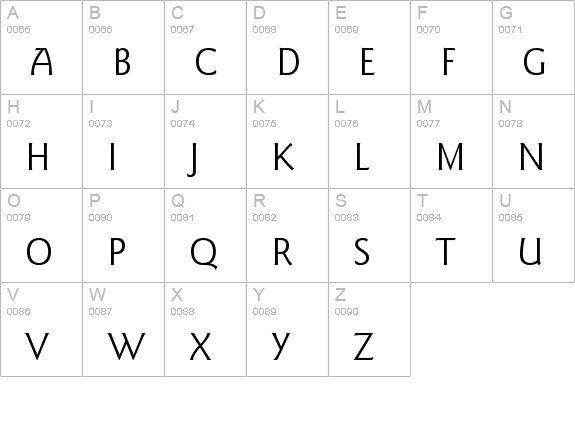
GoudySansSCEF-Book is a comfortable, highly readable variant in the GoudySansSCEF typeface family \xE2\x80\x94 well suited to long-form body text, articles, and editorial content.
GoudySansSCEF-Book font is a timeless and sophisticated typeface that strikes the perfect balance between modernity and classic elegance. With its clean lines and subtle curves, this font exudes a sense of professionalism and refinement. The GoudySansSCEF-Book font is versatile and suitable for a wide range of design projects, from branding to editorial layouts. What's even better is that this exquisite font is available for free download at FontsMarket.com. Now you can enhance your designs with this premium quality typeface without breaking the bank. Don't miss the opportunity to add GoudySansSCEF-Book to your font collection and elevate your creative projects with its timeless charm and impeccable style.